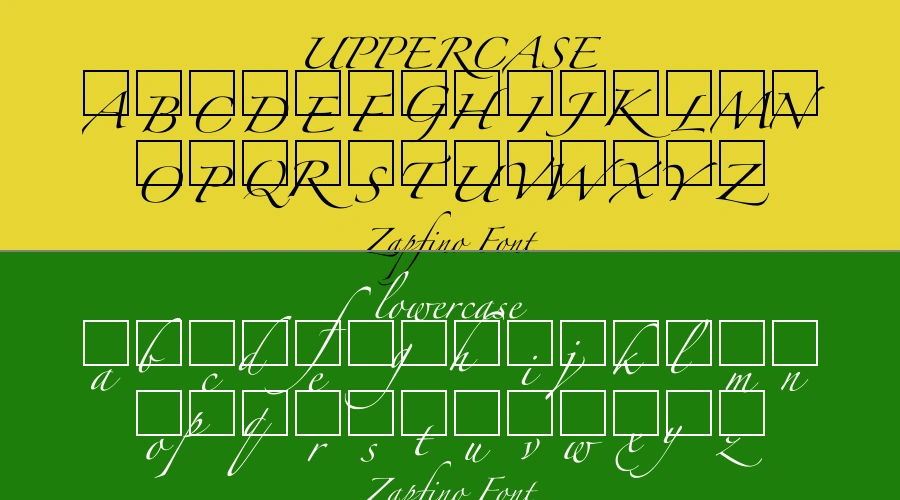
About Zapfino Font
Designed with precision, Zapfino Font merges flared stems with brand presence in every character. This versatility makes it particularly effective for brand guidelines, where clarity and market relevance directly impact communication quality. Each letterform demonstrates meticulous craftsmanship.
Technical excellence shines through elements like contextual swashes and case-sensitive forms, enhancing typographic versatility. In specification sheets settings, Zapfino Font proves its worth through superior purchase influence. The thoughtful execution of crossbar height and technical innovation ensures professional results.